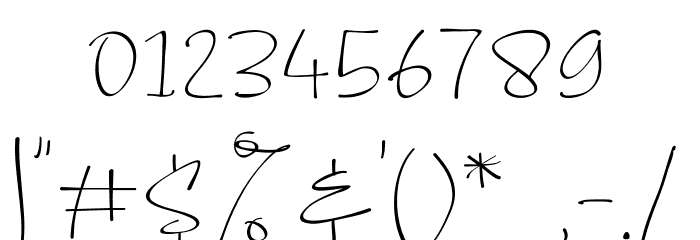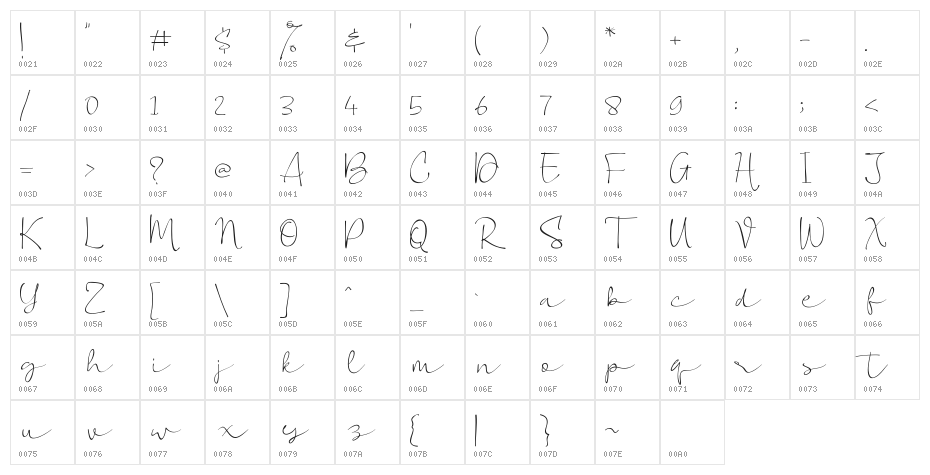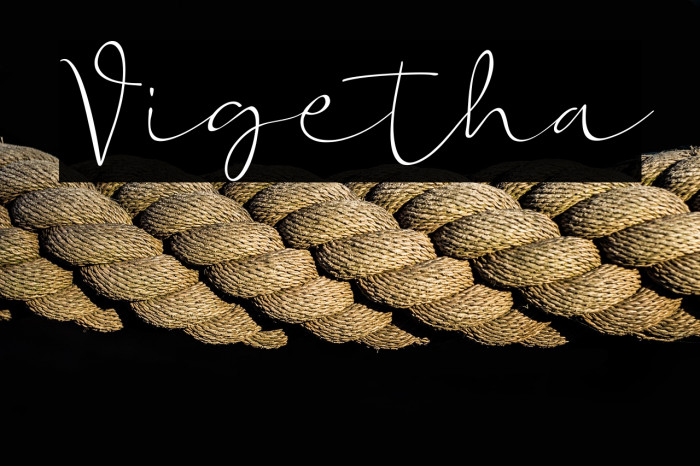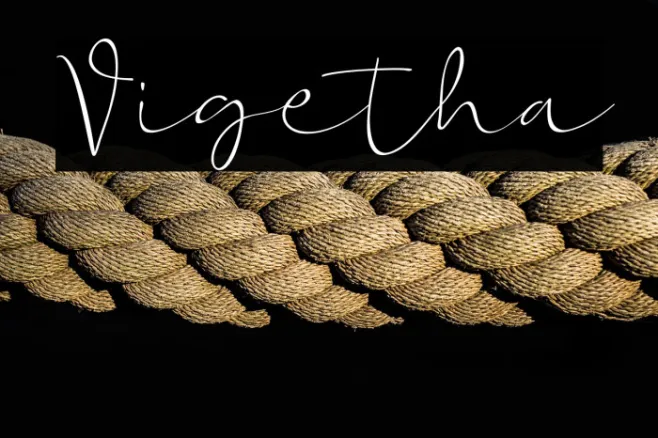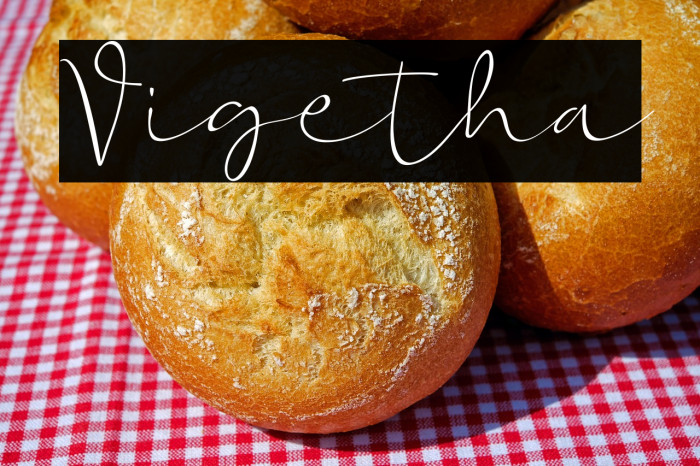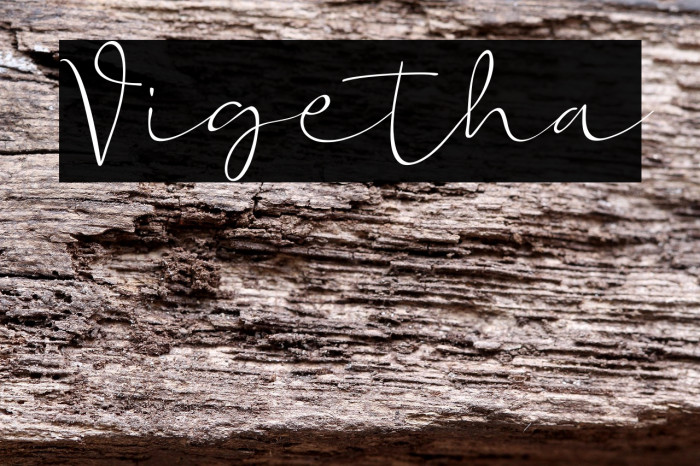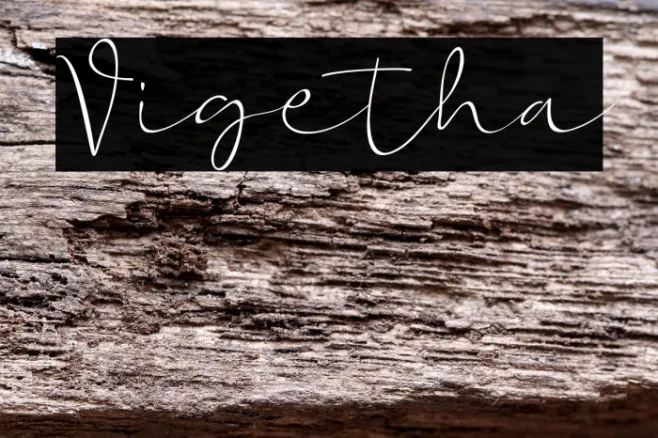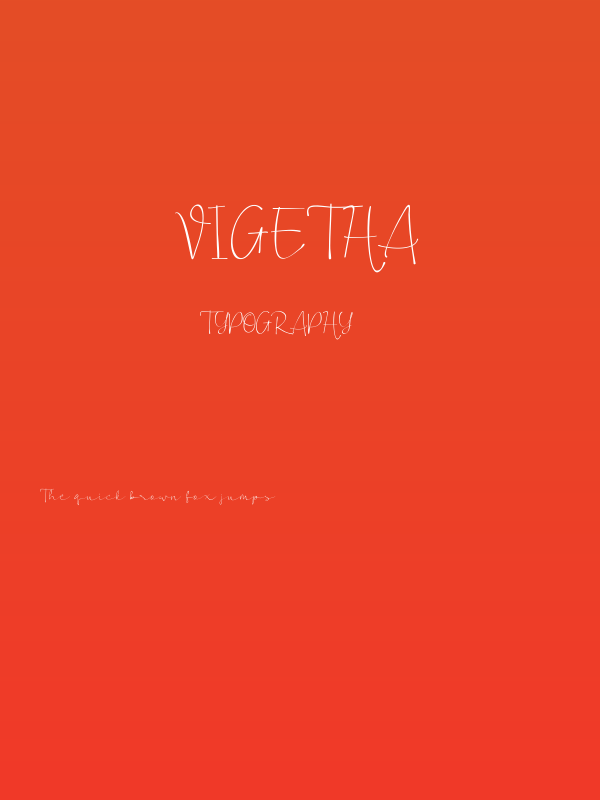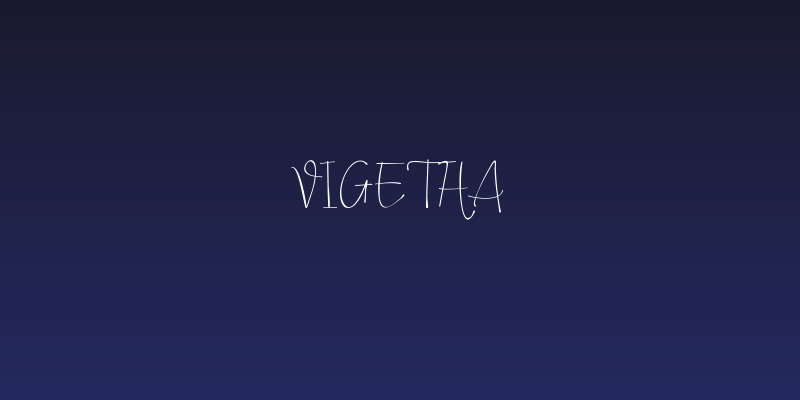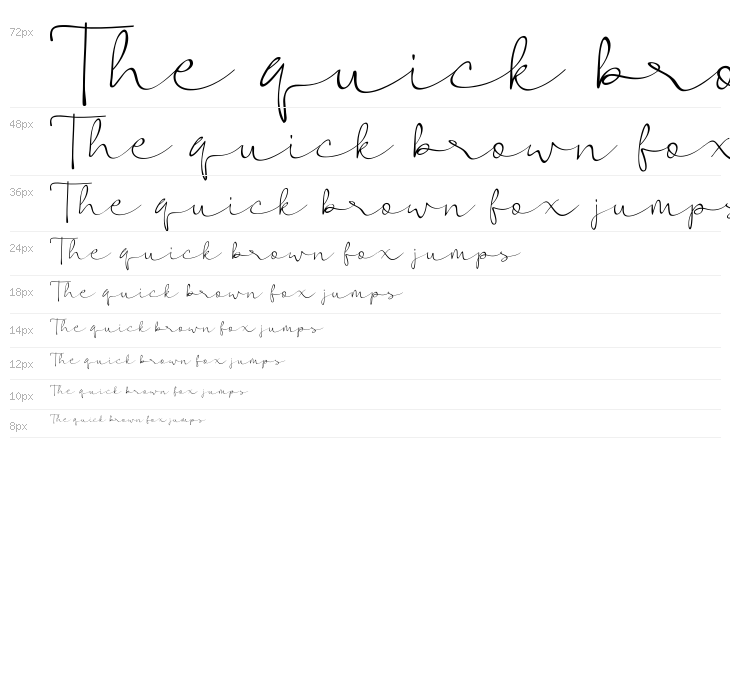
Vigetha Font
Vigetha Description
This font features a playful and whimsical handwritten style, characterized by its fluid and flowing letterforms. The uppercase letters are bold and expressive, with a slight slant that adds a dynamic feel. The lowercase letters maintain a consistent style, offering a smooth and elegant appearance. The numerals are clear and legible, matching the overall aesthetic of the font. Special characters are creatively designed, adding to the font's unique charm. The strokes are thin, with a low contrast between thick and thin lines, giving it a light and airy feel. This font is perfect for projects that require a personal touch, such as invitations, greeting cards, or branding materials that aim to convey a sense of creativity and individuality.
Overall StylePlayful, Whimsical
Use CaseHeadlines, Logos, Invitations
Proposed ProjectsIdeal for invitations, greeting cards, personal branding, and creative projects.